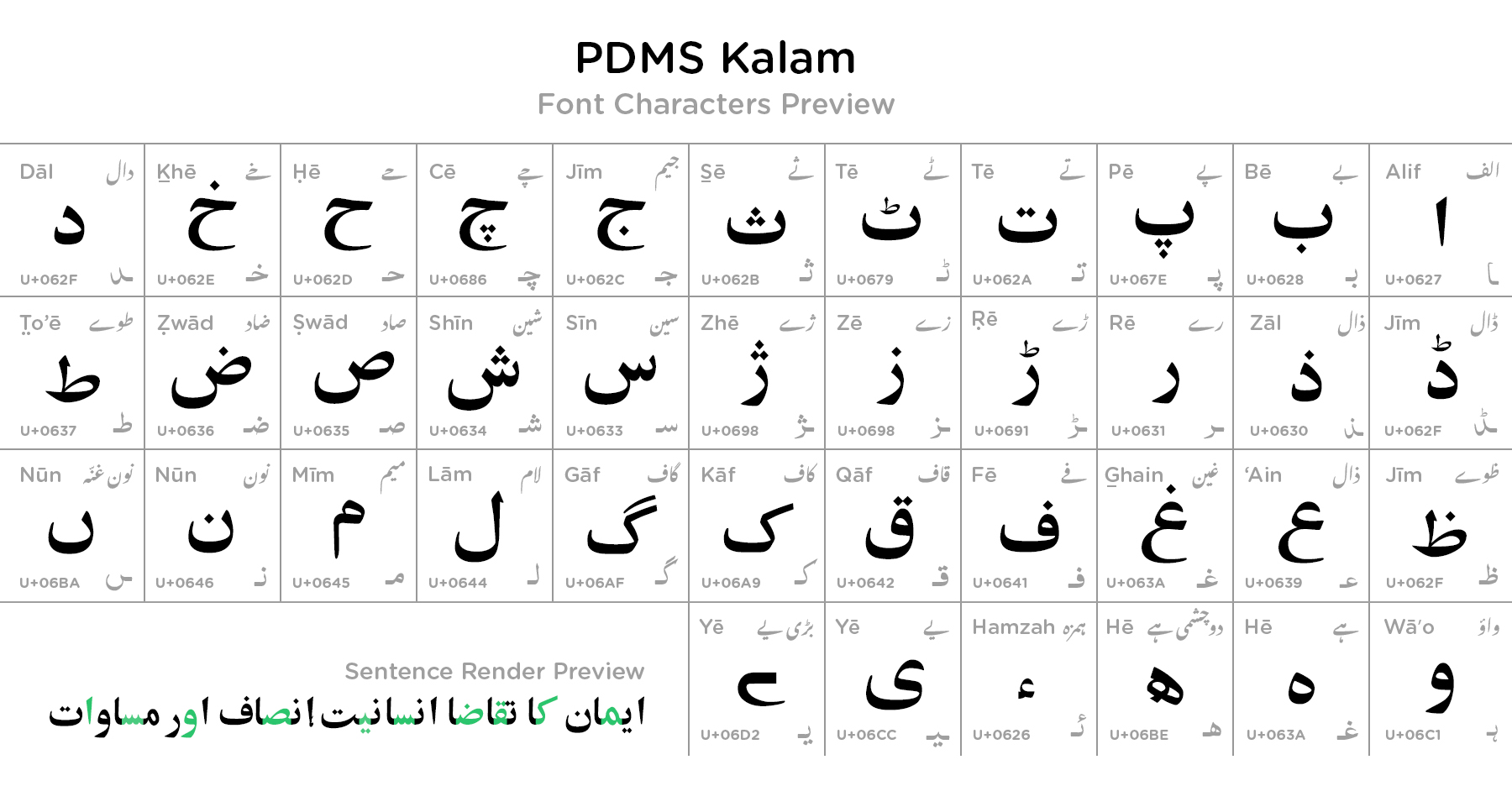
PDMS Kalam, an offering from Pakistan Data Management Services, is a visually captivating Sindhi font with decorative and flowing letterforms. Reserved rights to Pakistan Data Management Services, this font offers a true Qalam writing elegance and charm, making it ideal for various design projects. Inspired by the Nastaliq and Divani scripts with modern influences, PDMS Kalam was released on November 14, 2019. It boasts a collection of 249 characters and 432 glyphs, ensuring compatibility with languages like Urdu, Arabic, Latin, Hebrew, and more. Best suited for short text due to its intricate decorative look, the font shines in branding and logos, Quran writing, invitations, and various design projects.
Furthermore, its Unicode support spans Basic Latin, Hebrew, Arabic, General Punctuation, Private Use Area, Arabic Presentation Forms-A, and Latin-1 Supplement, facilitating seamless integration into diverse applications. With a moderate yet dynamic thickness, this font balances intricacy and readability. Its delicate strokes and changing thickness lend an air of sophistication, while elongated, rounded terminals and delicate piercing edges add to its aesthetic appeal. Its flowing letterforms and party font vibe make it perfect for creating visually striking compositions that leave a lasting impression on the readers.